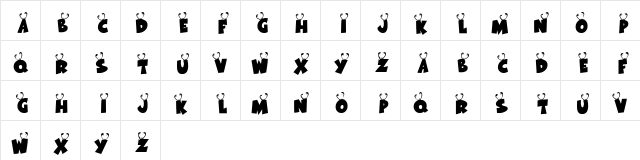
KR Ookie Bookie Regular
Design Context for KR Ookie Bookie Typeface
KR Ookie Bookie is a composed and adaptable typeface that performs quietly and consistently across a wide range of design contexts.